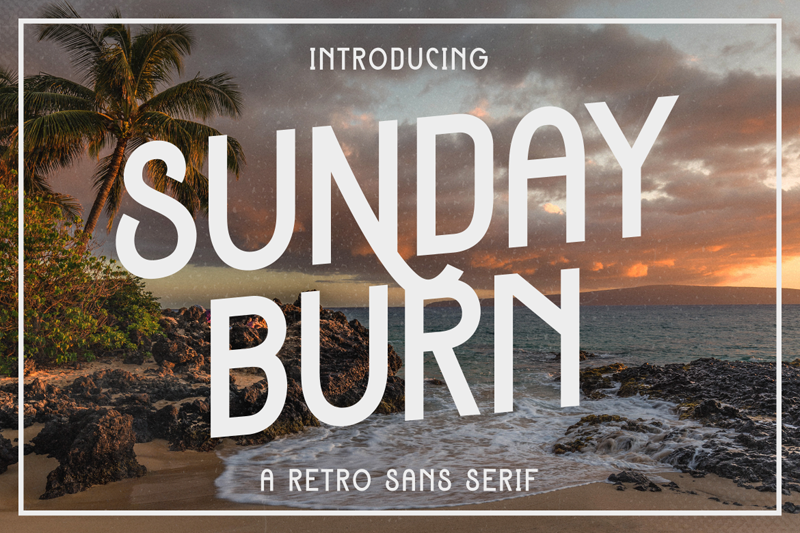
Font name: | Sunday Burn |
Author: | Type Factory |
Note by Type Factory | |
Sunday Burn is a versatile sans serif typeface that gives a retro aesthetic. With it's unique & distinct characteristics it sets itself apart, while also maintaining a strong timeless appeal overall. The font will easily match a wide range of creations that require a distinct touch. Full Version Download Here : https://typefactory.co/product/sunday-burn-a-retro-sans-serif/ https://www.creativefabrica.com/product/sunday-burn/ref/501262/ |